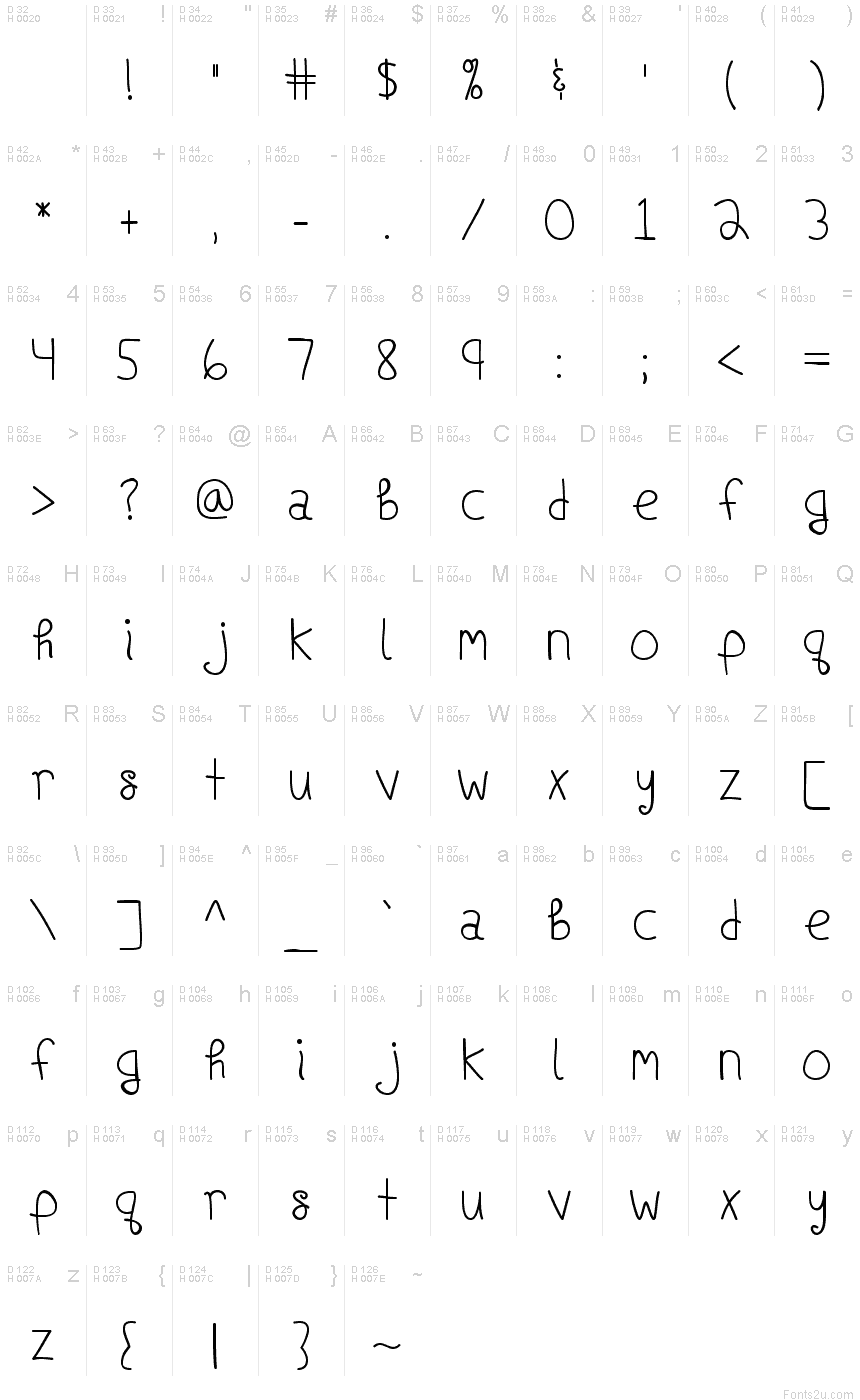
Ships In The Night (Bold) by Misti Hammers of Misti's Fonts is a free handwritten font with tall, looping letters and an easygoing line. The strokes stay mostly even, with open rounded forms and occasional tight turns. Long upward sweeps give the writing a lively silhouette.
Independent makers and casual lifestyle brands can use it for packaging, event posters, and merchandise. It keeps product names warm and personal. Its buoyant loops also suit children's publishing and lighthearted acoustic music artwork.